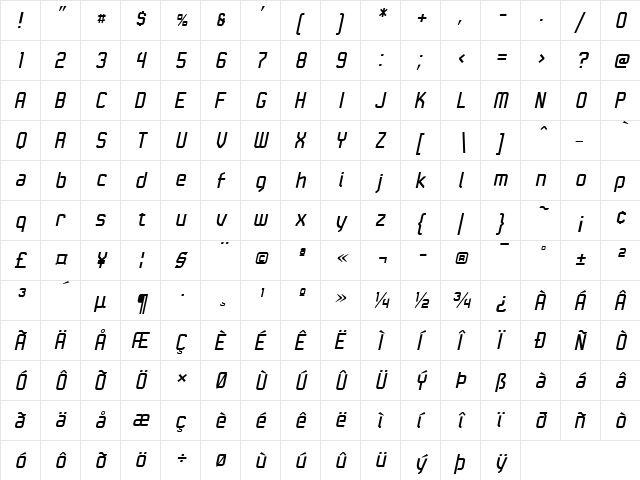
LinotypeKaliber Italic
Design Context for LinotypeKaliber Typeface
LinotypeKaliber takes a measured approach to typography — its balanced proportions and neutral character make it a reliable workhorse for both digital and print work. The slanted form adds forward momentum and visual energy.
Pro Tip: Try LinotypeKaliber for annotation and caption copy alongside an upright companion — the contrast in angle creates a dynamic but ordered typographic system.